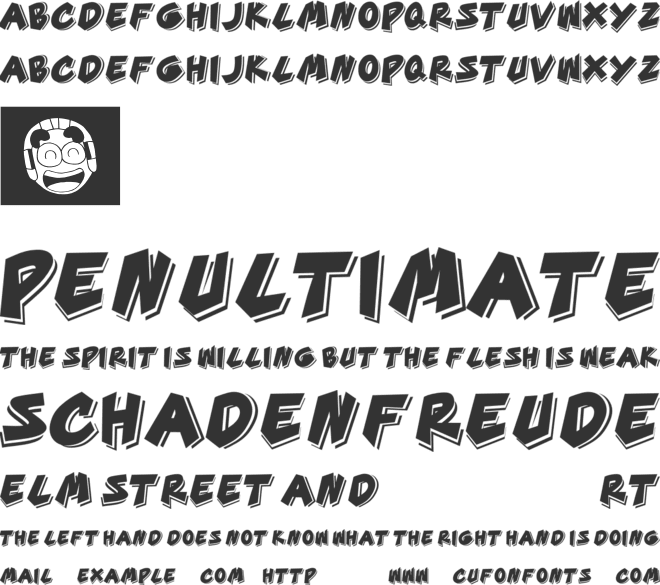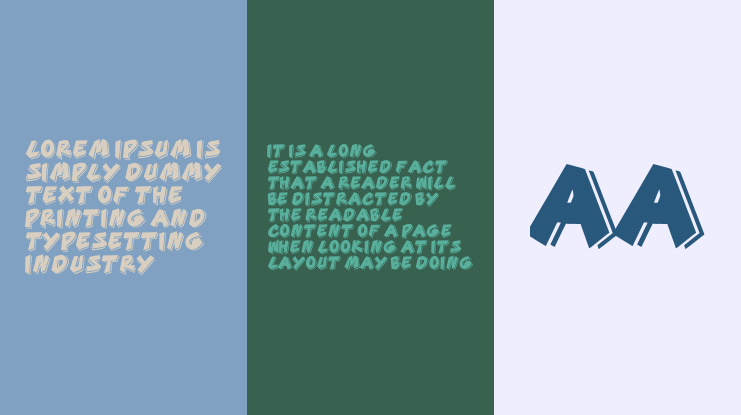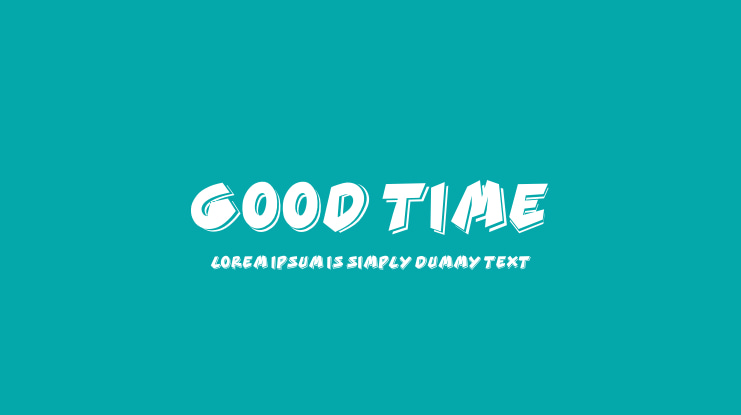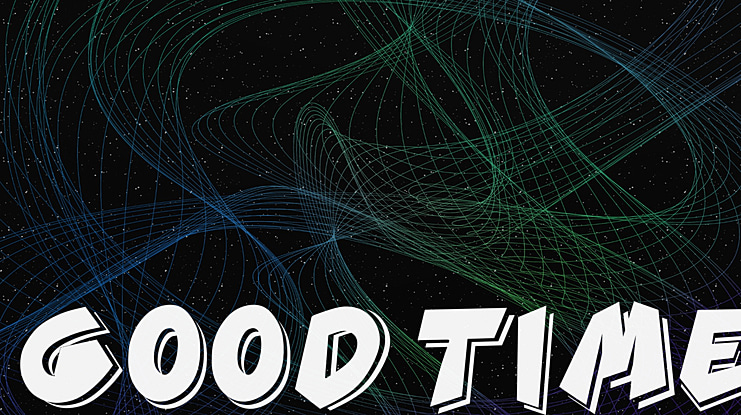
GOOD TIME Font
Good Time is a fun display typeface. It will lift your design and add a cheeky touch to each of your creations. Use this font for your designs and explore its endless possibilities.